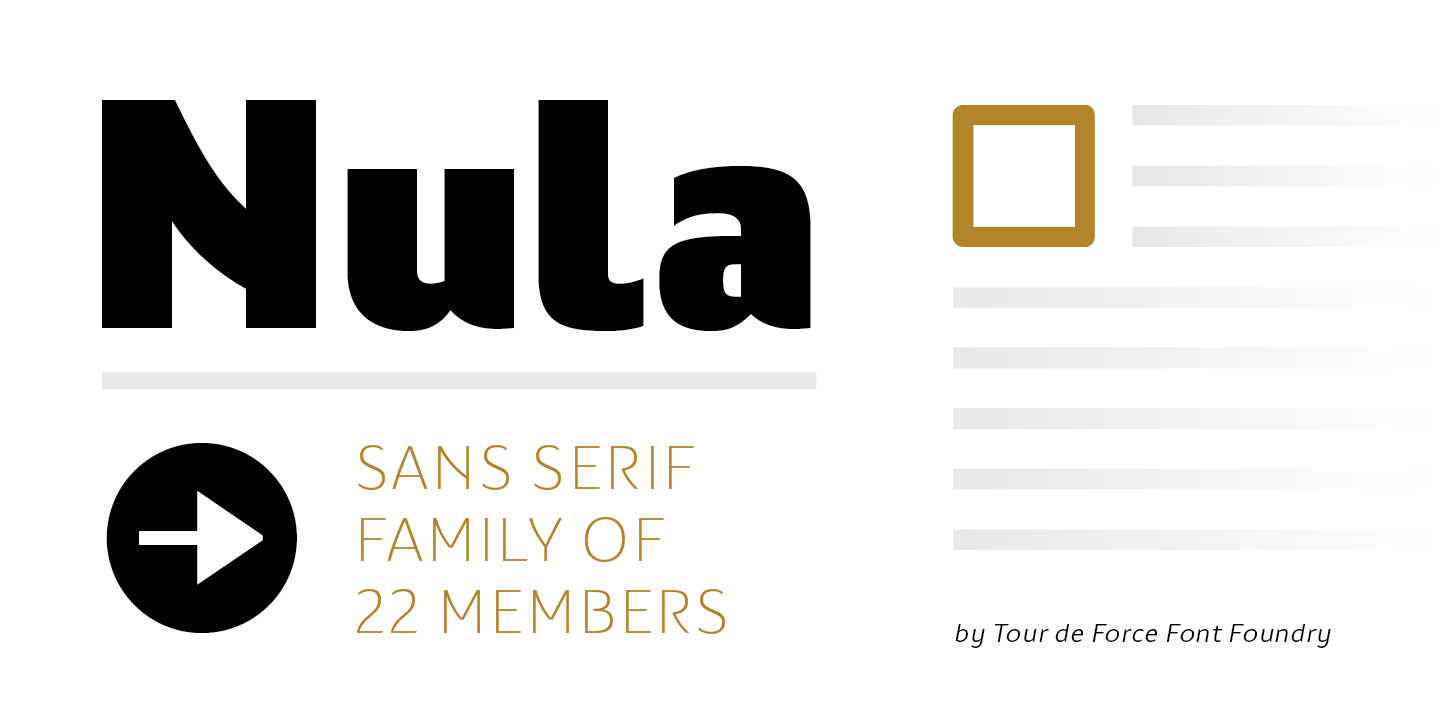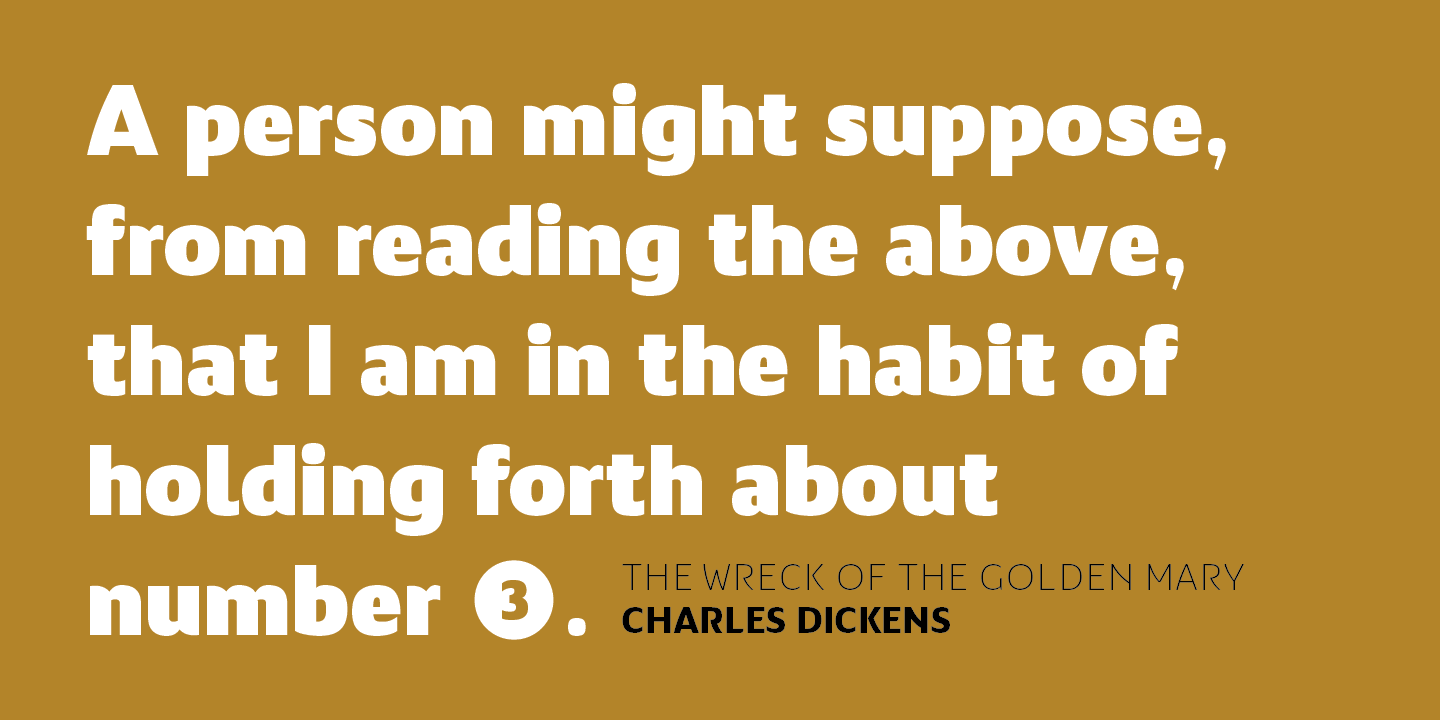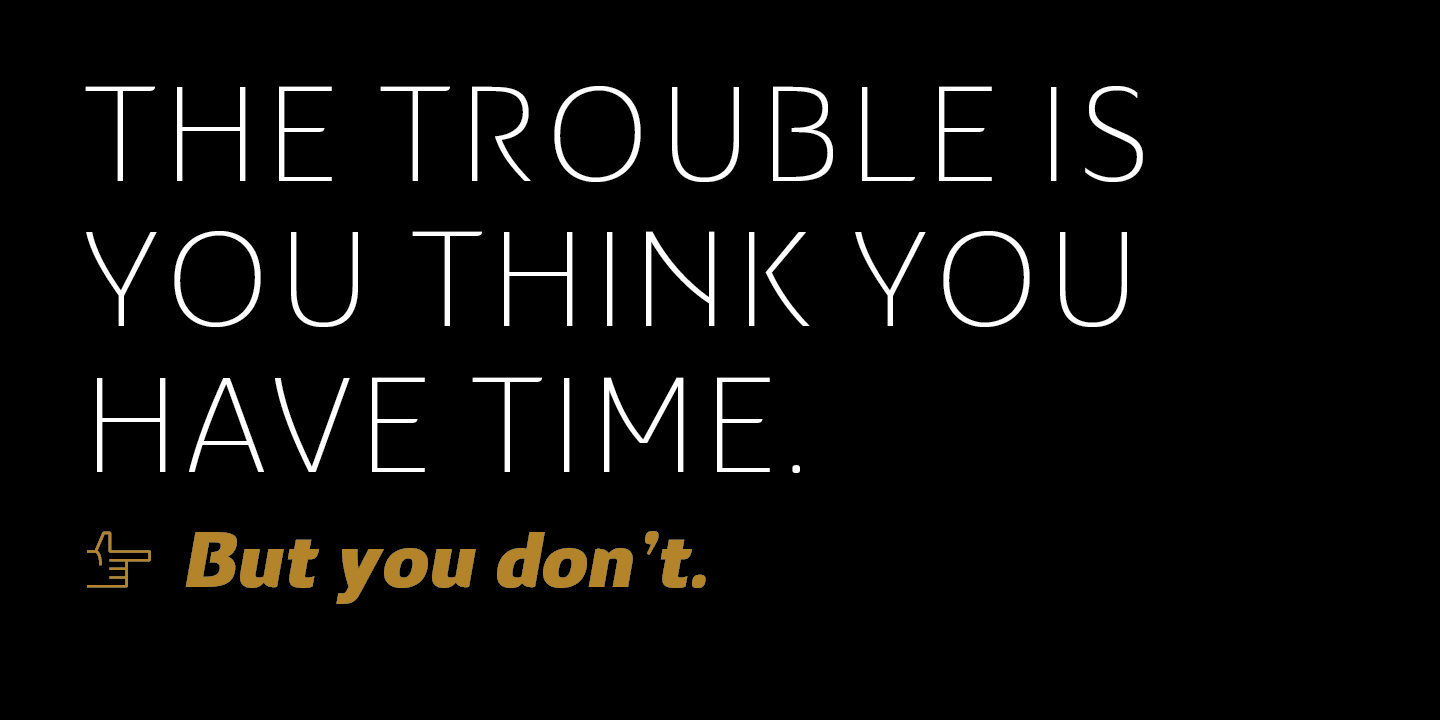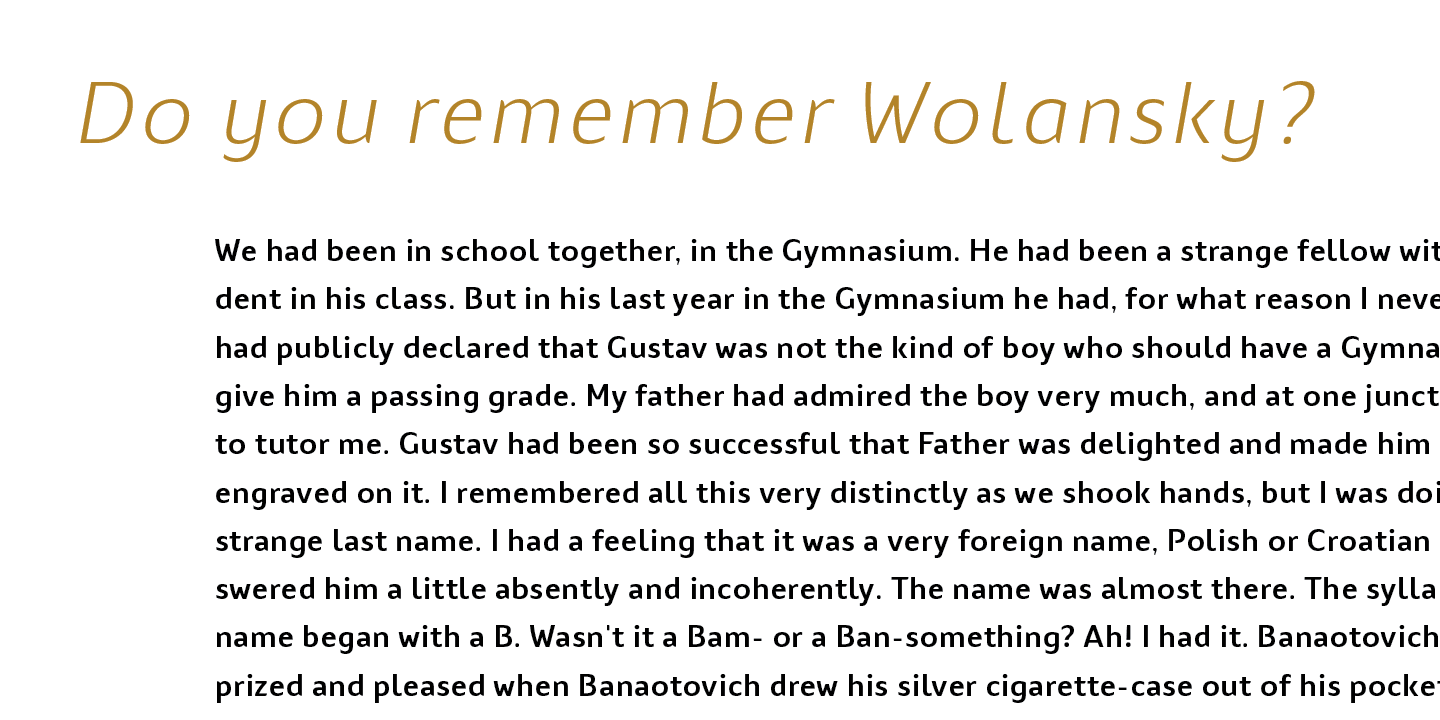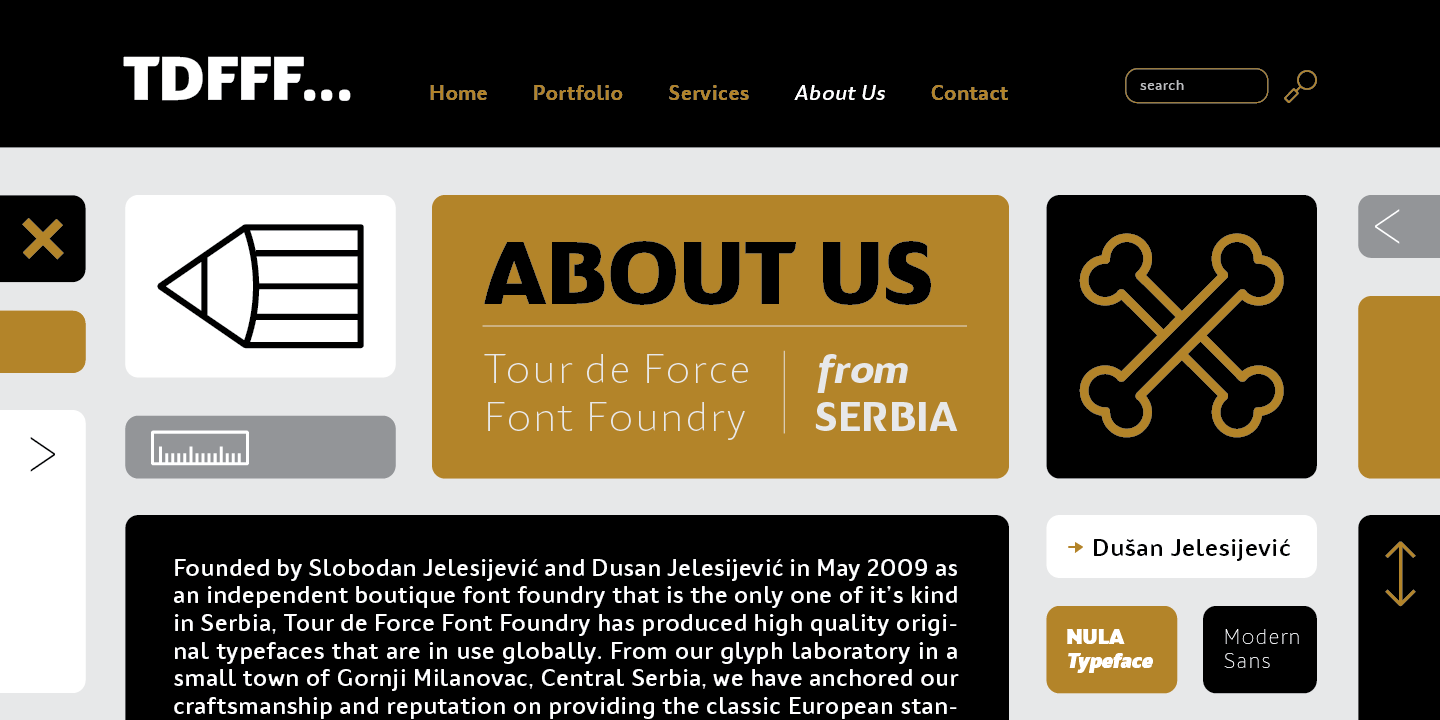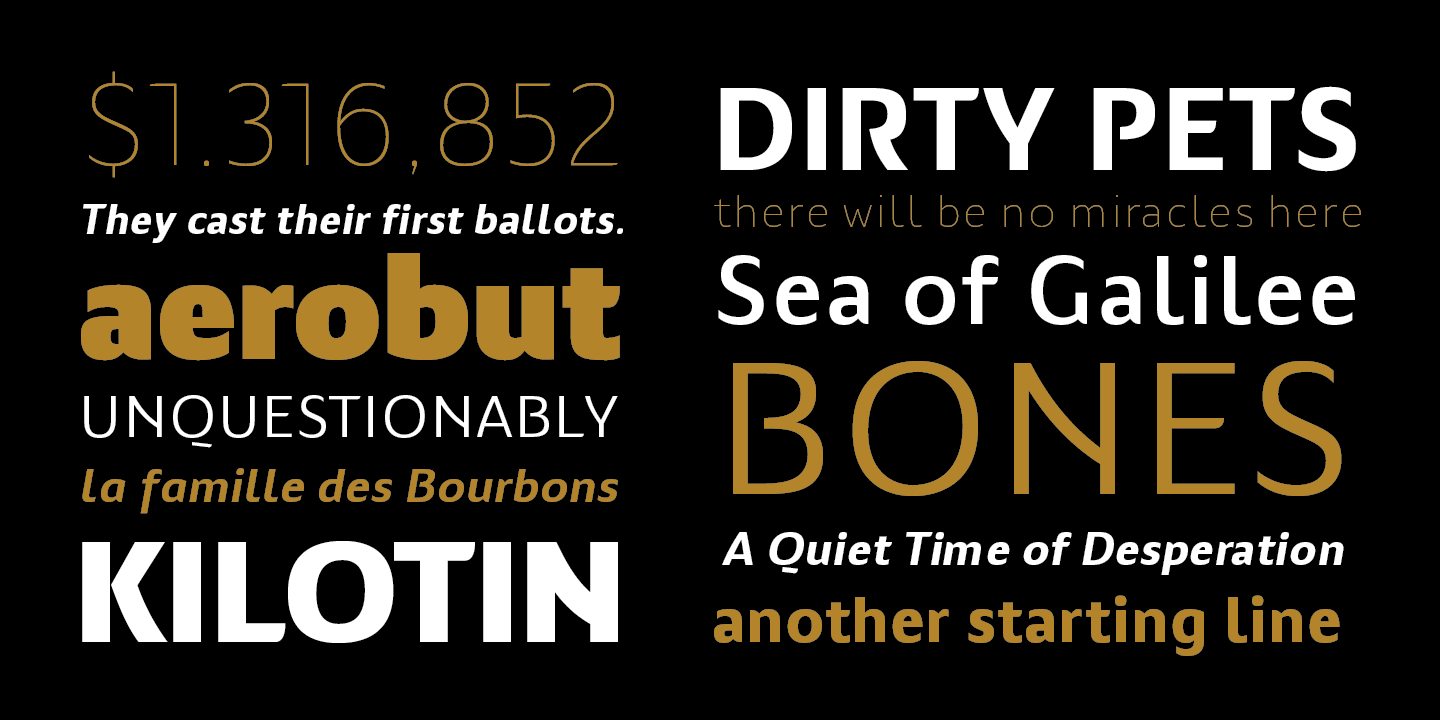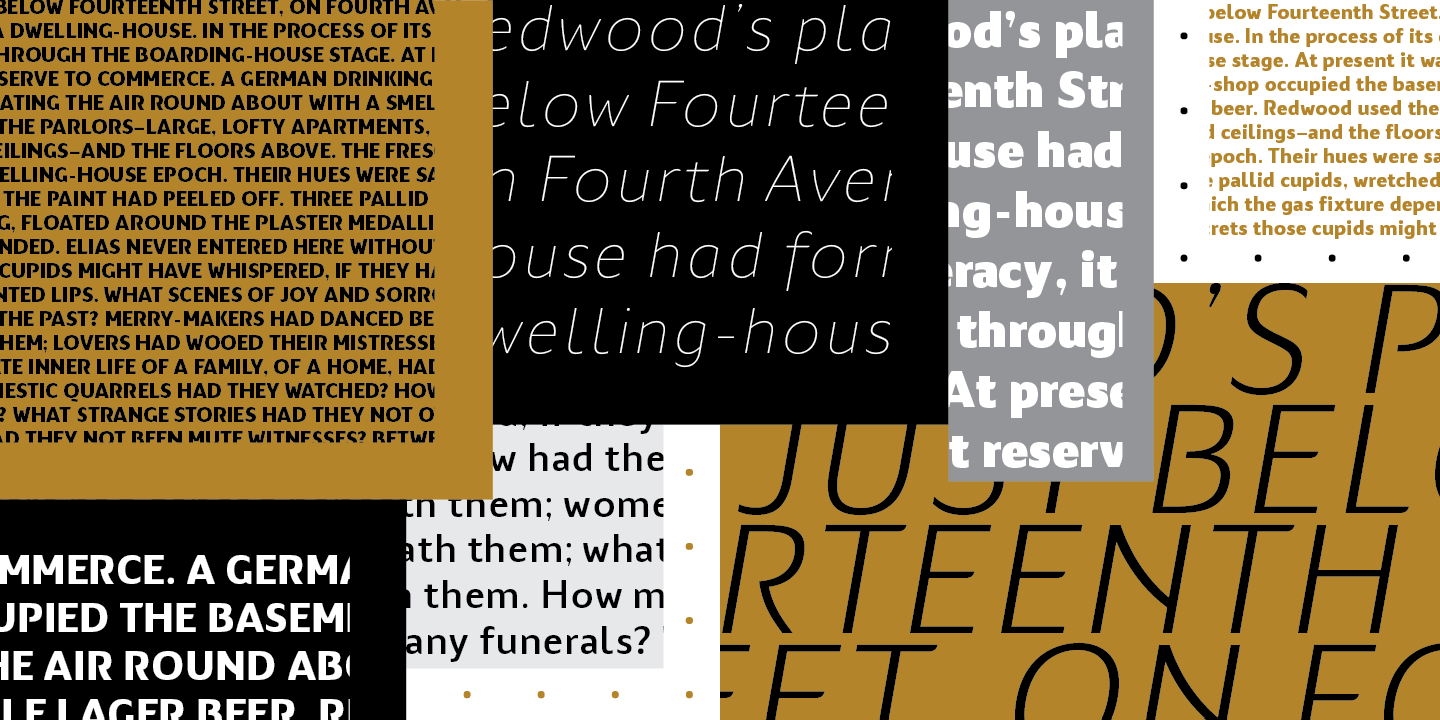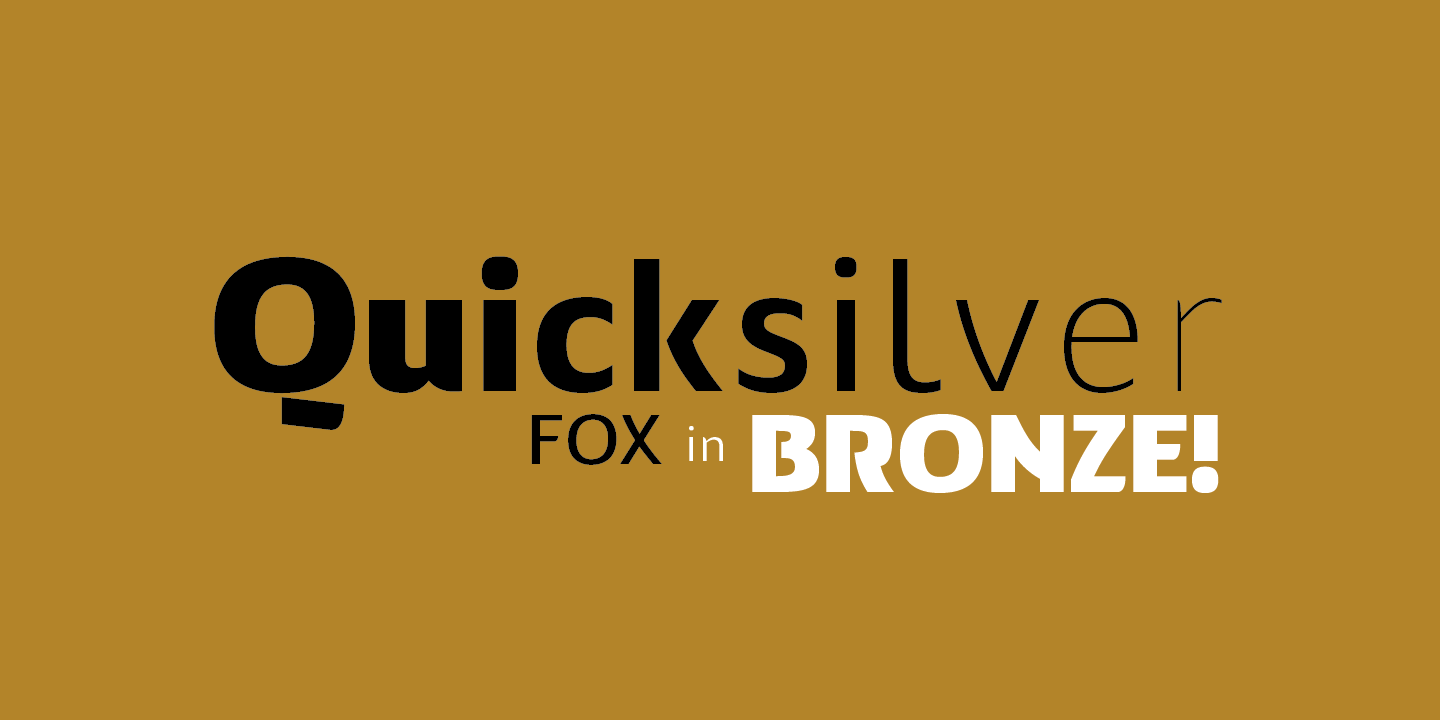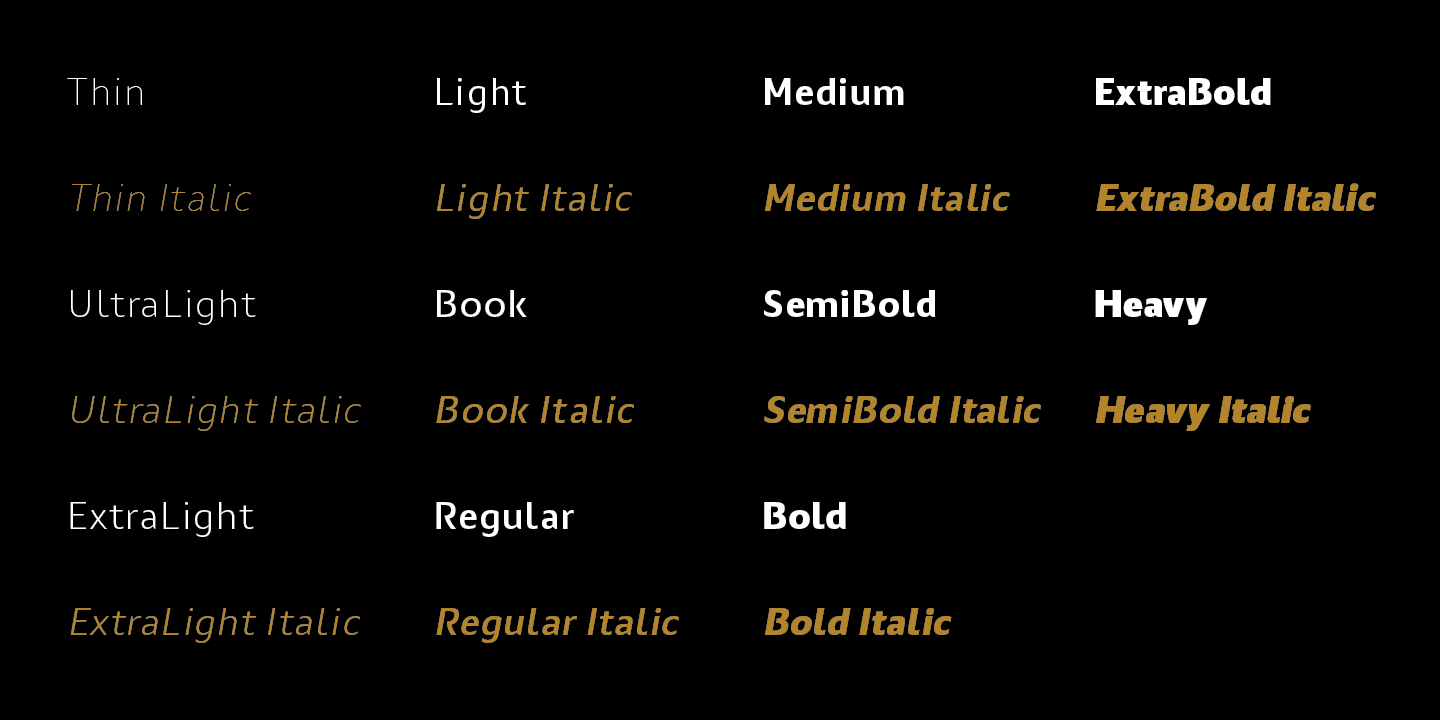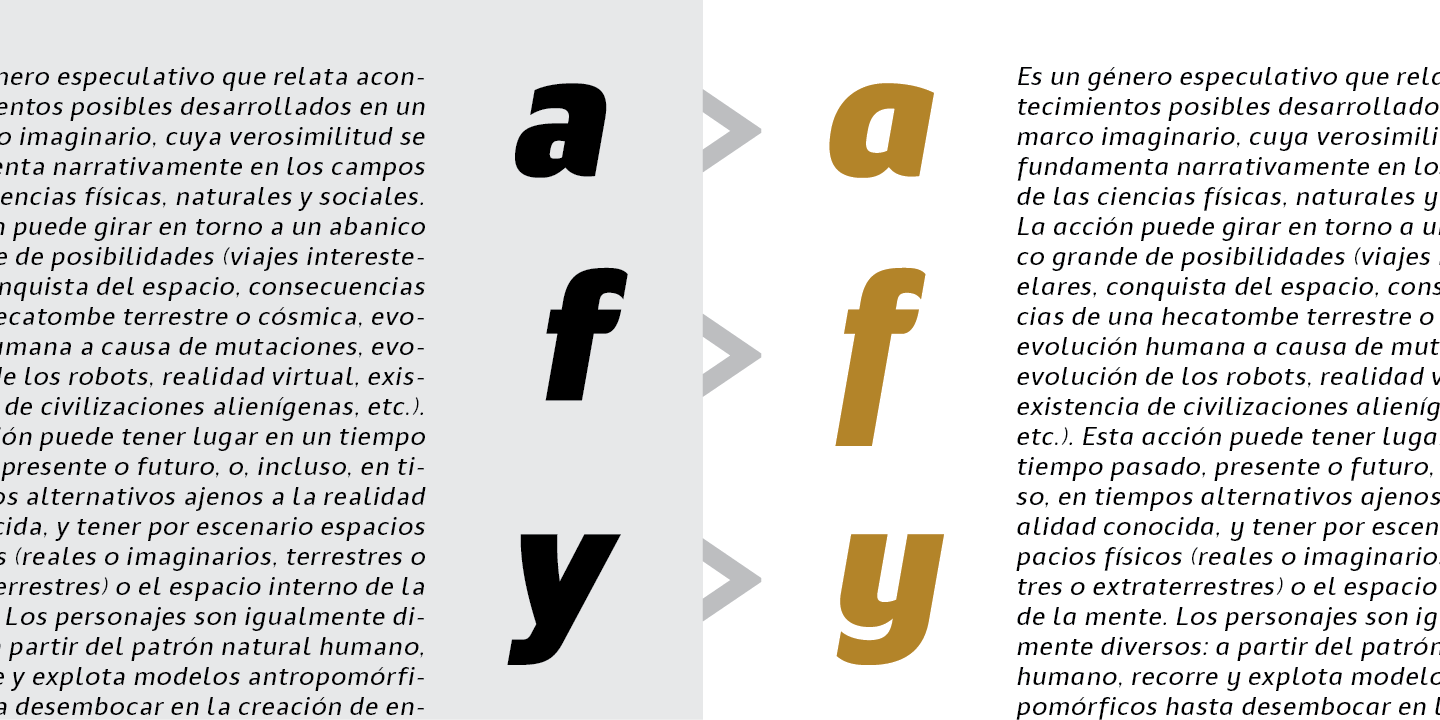
Nula is humanist sans serif family equipped with 22 font files - 11 weights and italics - from Thin to Heavy. It is modern, functional and distinctive, ideal for multiple purposes. Curvy diagonal stems and endings characterize Nula as typeface with lively elegant and soft touch, but stable, well structured typeface at same time. Nula font family is fully legible in any size and with it's variety of weights recommends itself for publishing or online magazine. Nula includes stylistic alternate letters, tabular and old style numerals, fractions, numerators and denominators, alternate forms of numerals and bunch of applicable symbols with arrows that are exchangeable in all weights, following weight thickens.